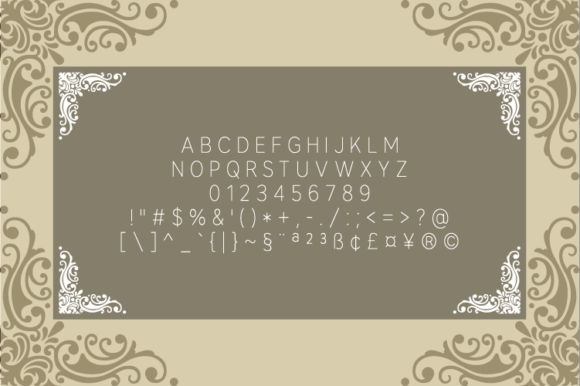
Introduction to Nagatshu Extra Light Font
As a designer, there’s nothing quite like the thrill of bringing a creative project to life. It’s the moment when your vision takes shape, and you get to see the fruits of your labor. For many of us, this moment often comes when we’re experimenting with new typography. And that’s exactly where the Nagatshu Extra Light Font comes in – a stunning sans serif font that adds a touch of elegance to any design.
With its high-quality design and unique style, the Nagatshu Extra Light Font is a valuable resource for designers looking to elevate their creative projects. Whether you’re working on a DIY project or a professional design, this font is sure to make a statement. Plus, with its transparent background and free download options, it’s an accessible and versatile tool that’s perfect for designers of all levels.
Key Features of Nagatshu Extra Light Font
• High-quality, elegant design ideal for creative projects, making it a valuable design resource.
• Features a transparent background, allowing for seamless integration into various design elements.
• Includes 100 glyphs, making it suitable for a wide range of languages and creative applications.
• Designed with a resolution of 1024 x 1024 pixels, ensuring crisp and clear rendering on various screens and devices.
• Unique characteristics include its light weight and refined lines, making it perfect for creating sophisticated and elegant designs.
Honest Review: Nagatshu Extra Light Font
I recently stumbled upon the Nagatshu Extra Light Font, and I must say it’s a fantastic addition to my design resource library. With its high quality and elegant aesthetic, I can already envision it being a perfect fit for various creative projects.
• ✨ The font’s delicate design makes it ideal for projects that require a touch of sophistication and subtlety.
• ✨ The transparent background feature allows for seamless integration with various design elements, giving users a high degree of flexibility when working on their creative project.
• ⚠️ The font may not be suitable for projects that require bold or attention-grabbing typography, as its delicate design may get lost in the mix.
• ⚠️ The Nagatshu Extra Light Font might not be as readable in smaller font sizes, which could be a concern for designers working on projects with tight space constraints.
Overall, I’m impressed with the Nagatshu Extra Light Font, and I believe it’s a valuable addition to any designer’s toolkit. With its unique design and versatile features, it’s definitely worth checking out for your next creative project.
The Nagatshu Extra Light Font is available for free download, making it an excellent choice for designers on a budget. To get the most out of this font, use it with a transparent background to create a sleek and modern look. Experiment with different font sizes and combinations to add depth and interest to your design.
The Nagatshu Extra Light Font is perfect for use in branding materials, such as business cards and letterheads. It’s also ideal for creating eye-catching graphics and visuals for social media and websites. Additionally, it’s a great choice for use in presentations and documents where a high-quality, modern font is required.